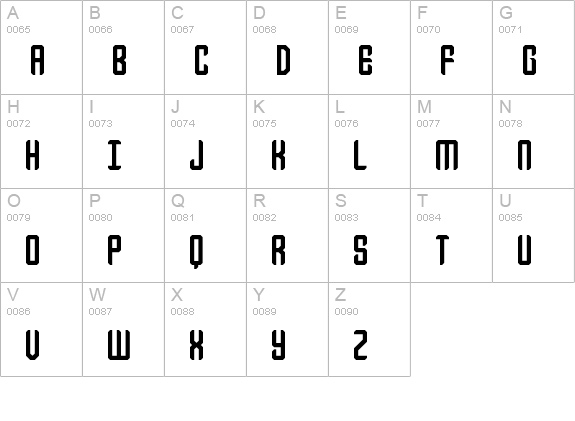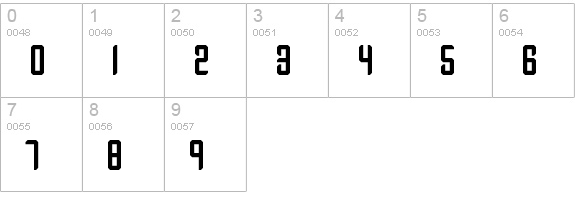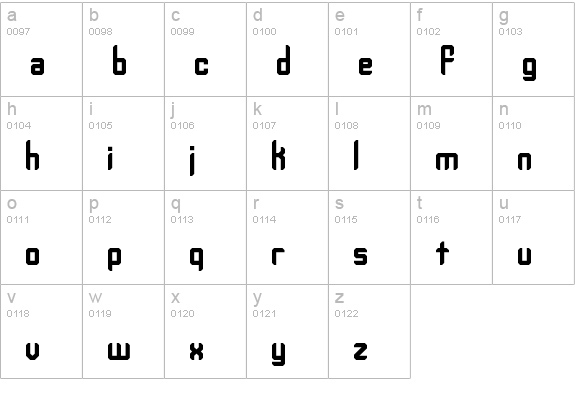
Discover the elegant and intricate beauty of Your Complex BRK font, a versatile typeface that exudes sophistication and modernity. Designed with a unique blend of sharp angles and delicate curves, this font captures attention and adds a touch of creativity to any project. Whether you're designing a logo, creating a poster, or crafting a website, Your Complex BRK font is sure to make a bold statement. What sets Your Complex BRK font apart is its versatility and adaptability to various design styles. Its clean lines and detailed letterforms make it suitable for both formal and creative applications. This font is perfect for branding, editorial design, packaging, and more, allowing you to express your creativity without limits. Best of all, Your Complex BRK font is freely available to download at FontsMarket.com. Now you can elevate your designs with this stunning typeface without any cost. Don't miss out on this opportunity to add a touch of sophistication and style to your projects with Your Complex BRK font. Download it today and let your creativity shine!